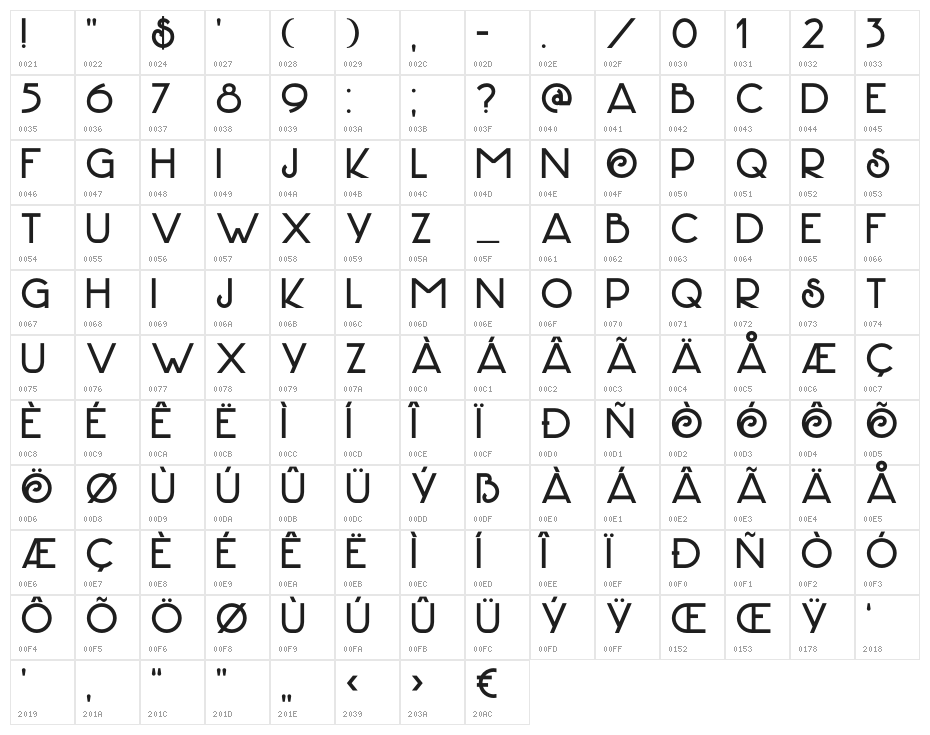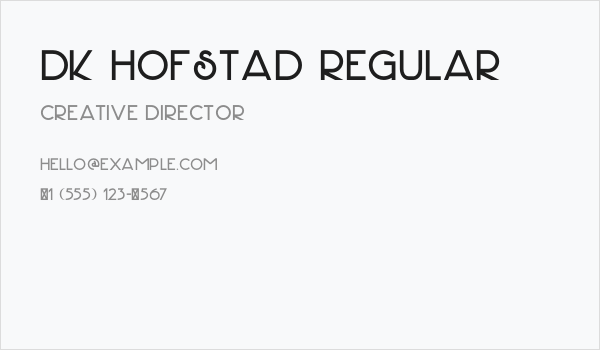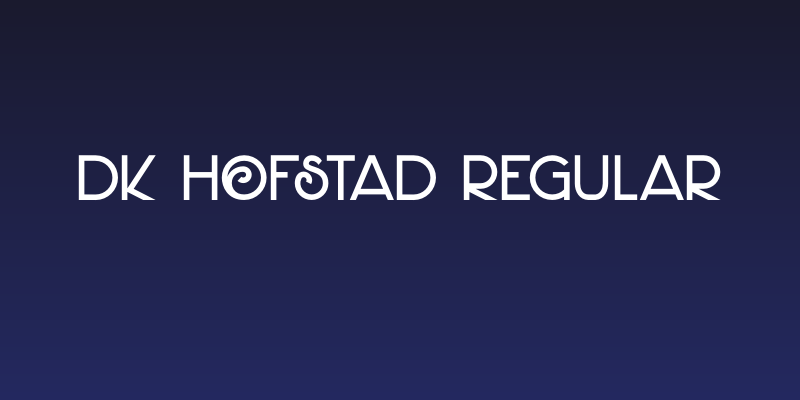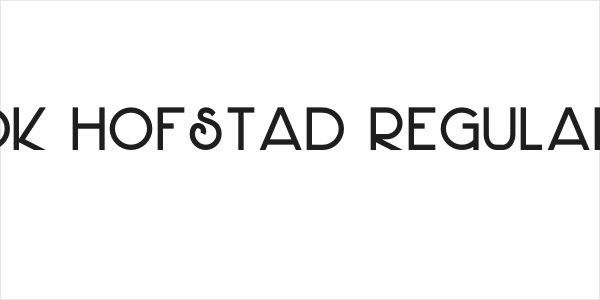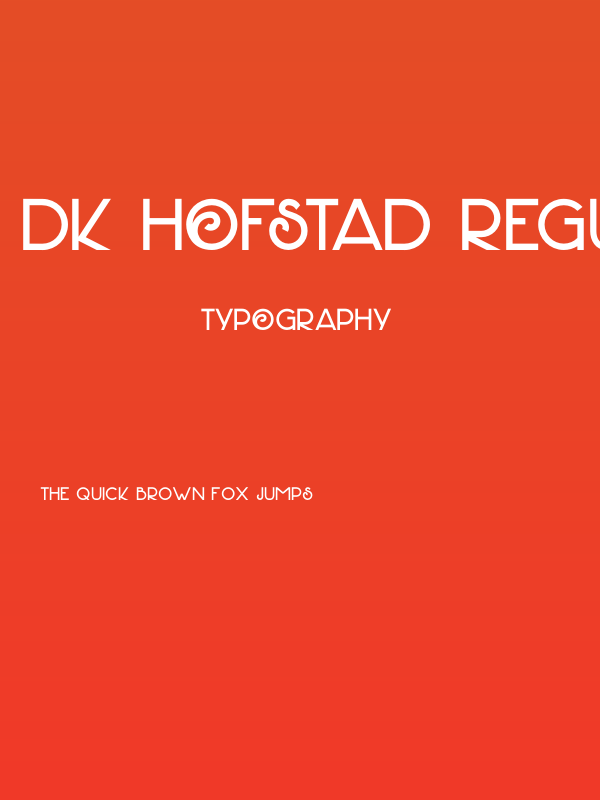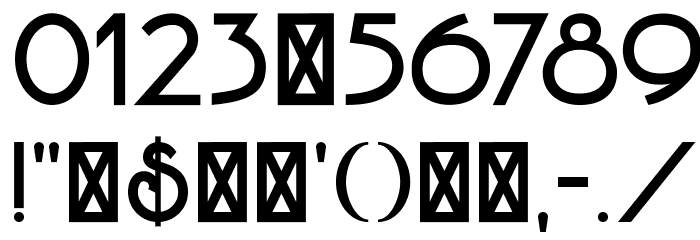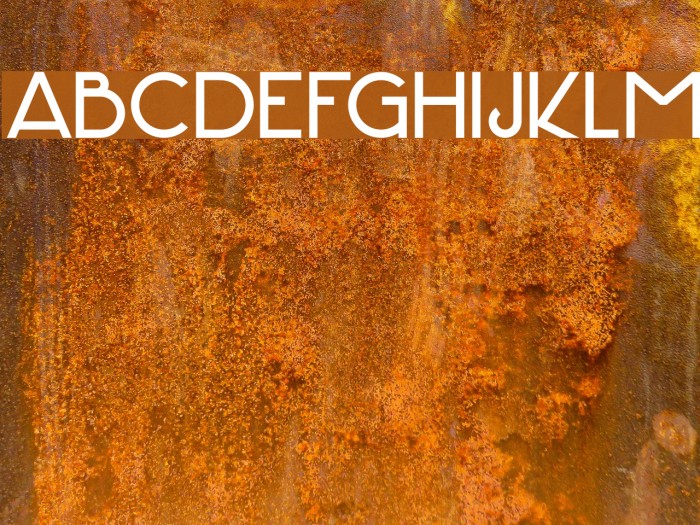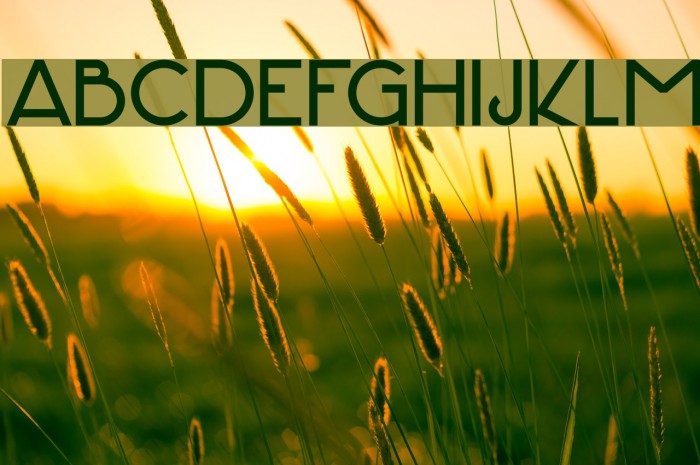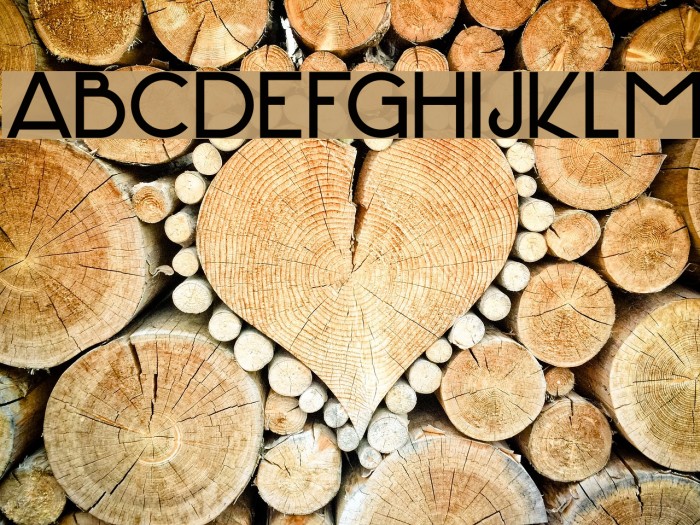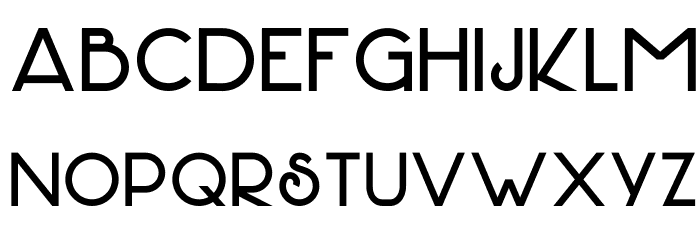
DK Hofstad Regular Font
DK Hofstad Regular Description
This font features a unique blend of geometric and modern design elements, characterized by clean lines and a distinct angular style. The uppercase letters are bold and striking, with a consistent stroke width that gives a sense of uniformity and balance. The lowercase letters maintain the same geometric precision, offering a cohesive look across all characters. Numbers are crafted with the same attention to detail, ensuring readability and aesthetic appeal. Special characters are designed to complement the overall style, making this font versatile for various applications.